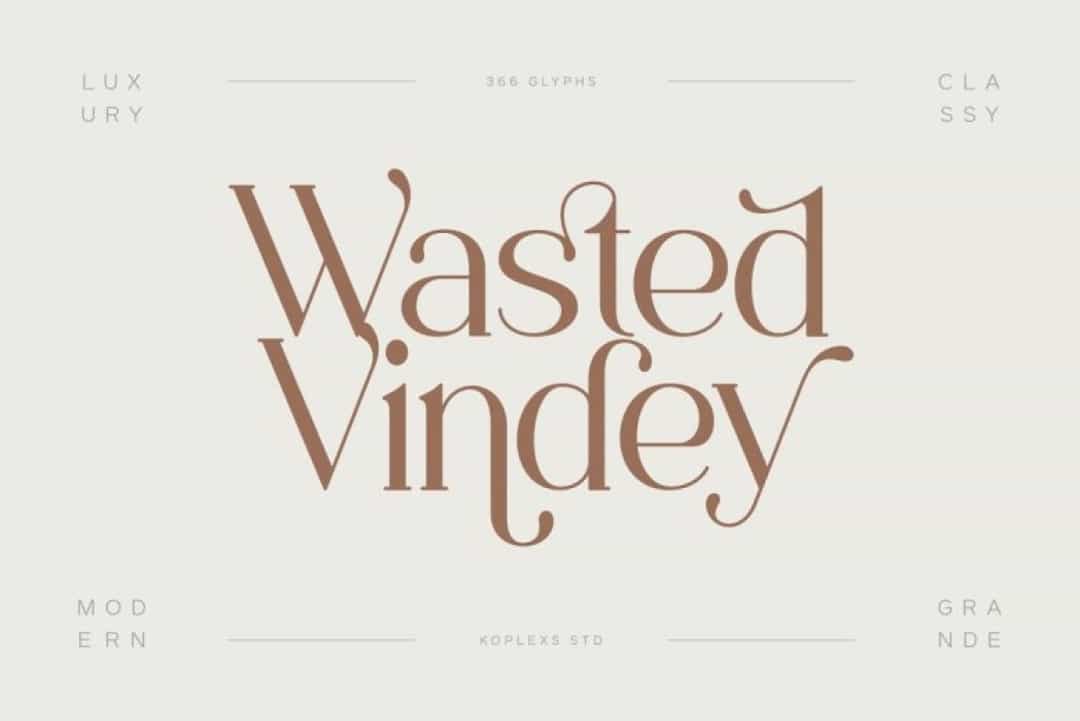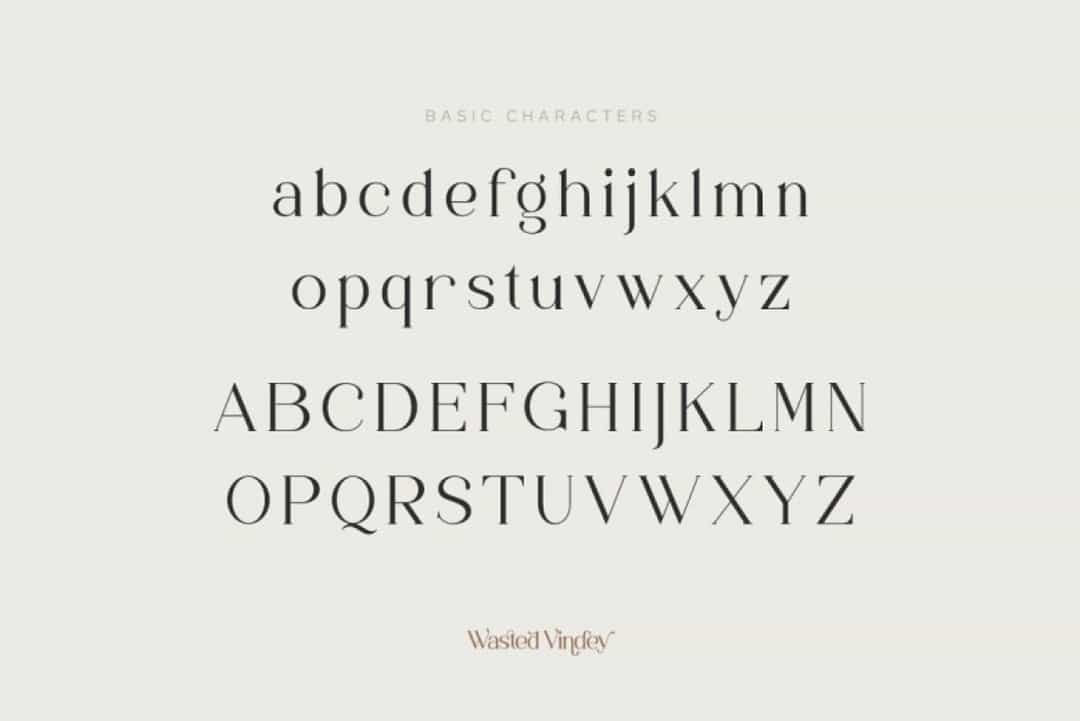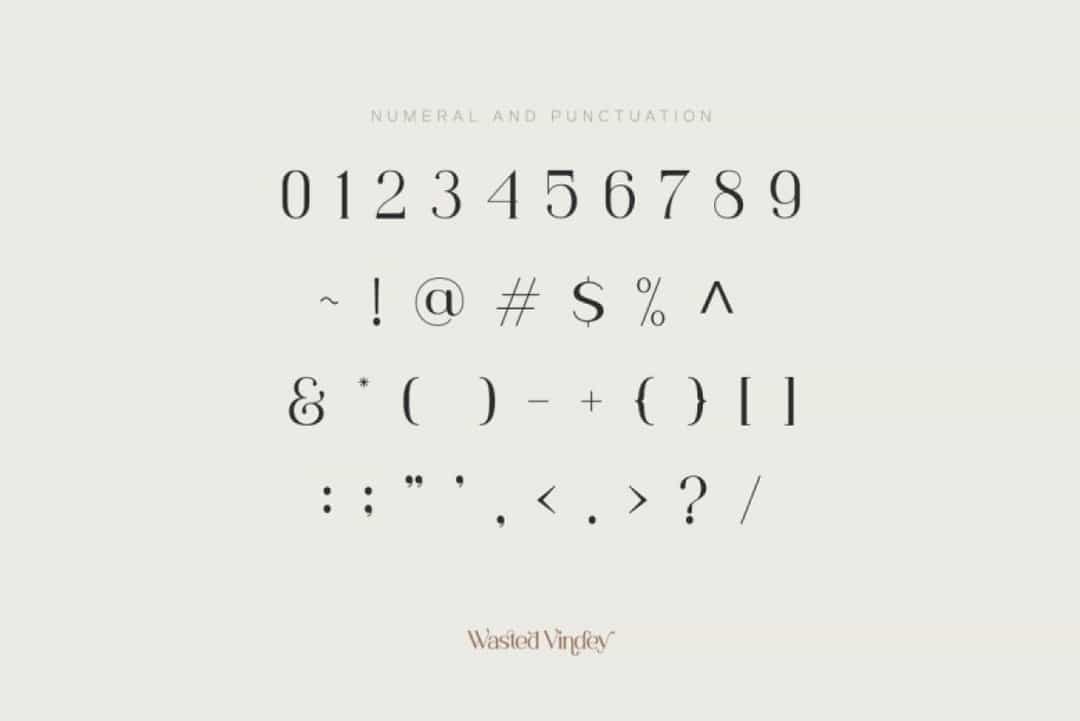
Wasted Vindey Serif Font is an eye-catching set of modern, classy characters designed for any design or branding need. Wasted Vindey font has a sophisticated elegance and feminine charm that give any design or branding project its signature look.